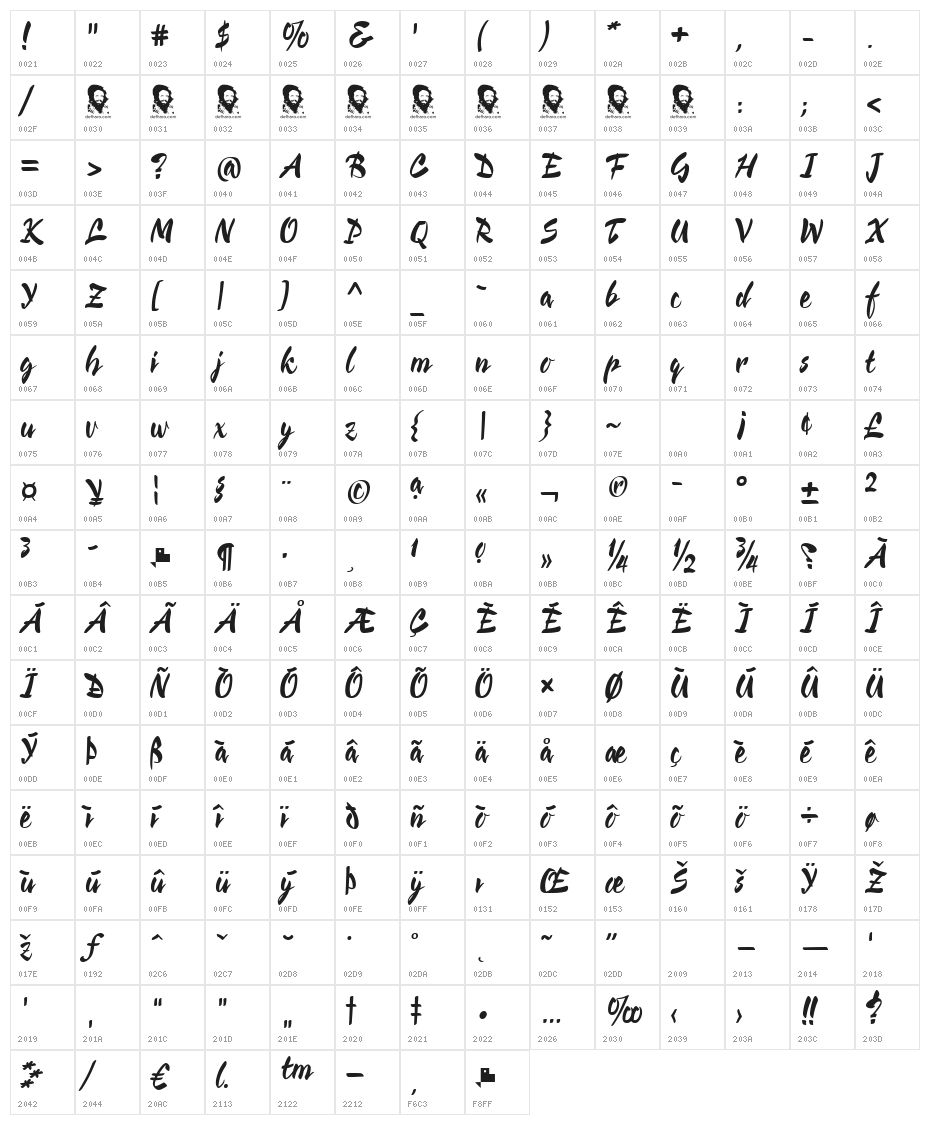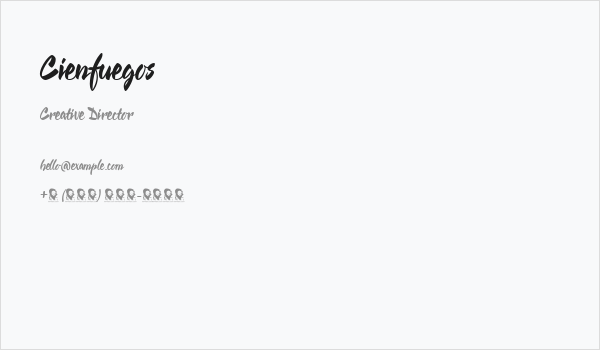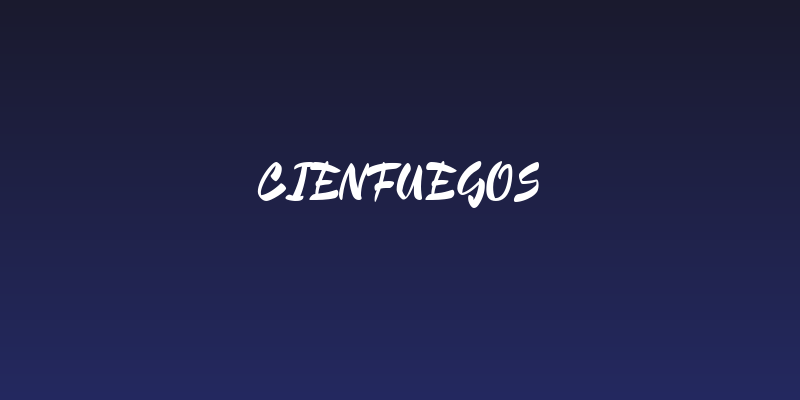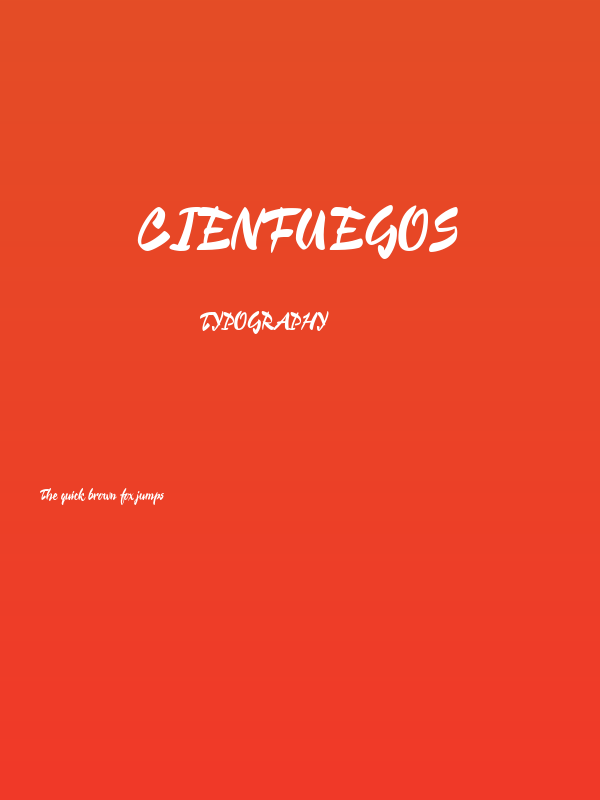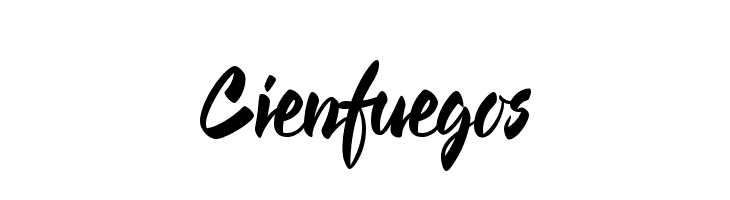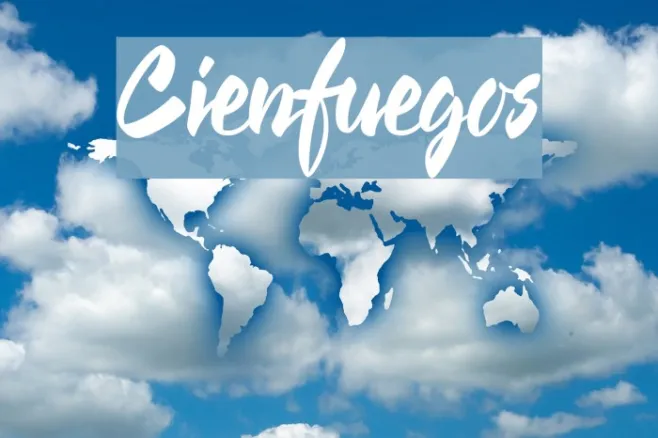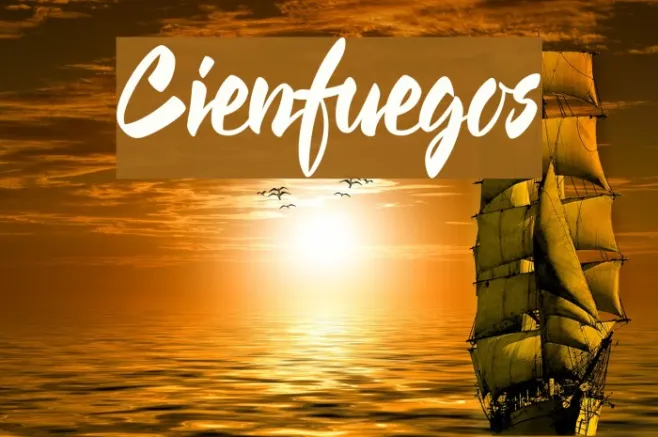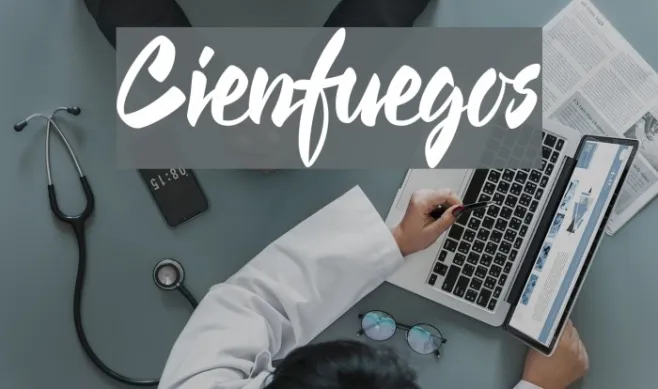
Cienfuegos Font
Cienfuegos Description
This font features a bold and expressive script style, characterized by its fluid and dynamic strokes. The letters are connected, giving it a handwritten appearance that is both elegant and casual. The uppercase letters are slightly more structured, while the lowercase letters exhibit a more relaxed flow. The overall design is reminiscent of calligraphy, with a modern twist that makes it suitable for various creative applications. The special characters maintain the same stylistic approach, ensuring consistency throughout the font.
| Proposed Projects | Ideal for branding, invitations, greeting cards, and artistic projects that require a personal touch. |